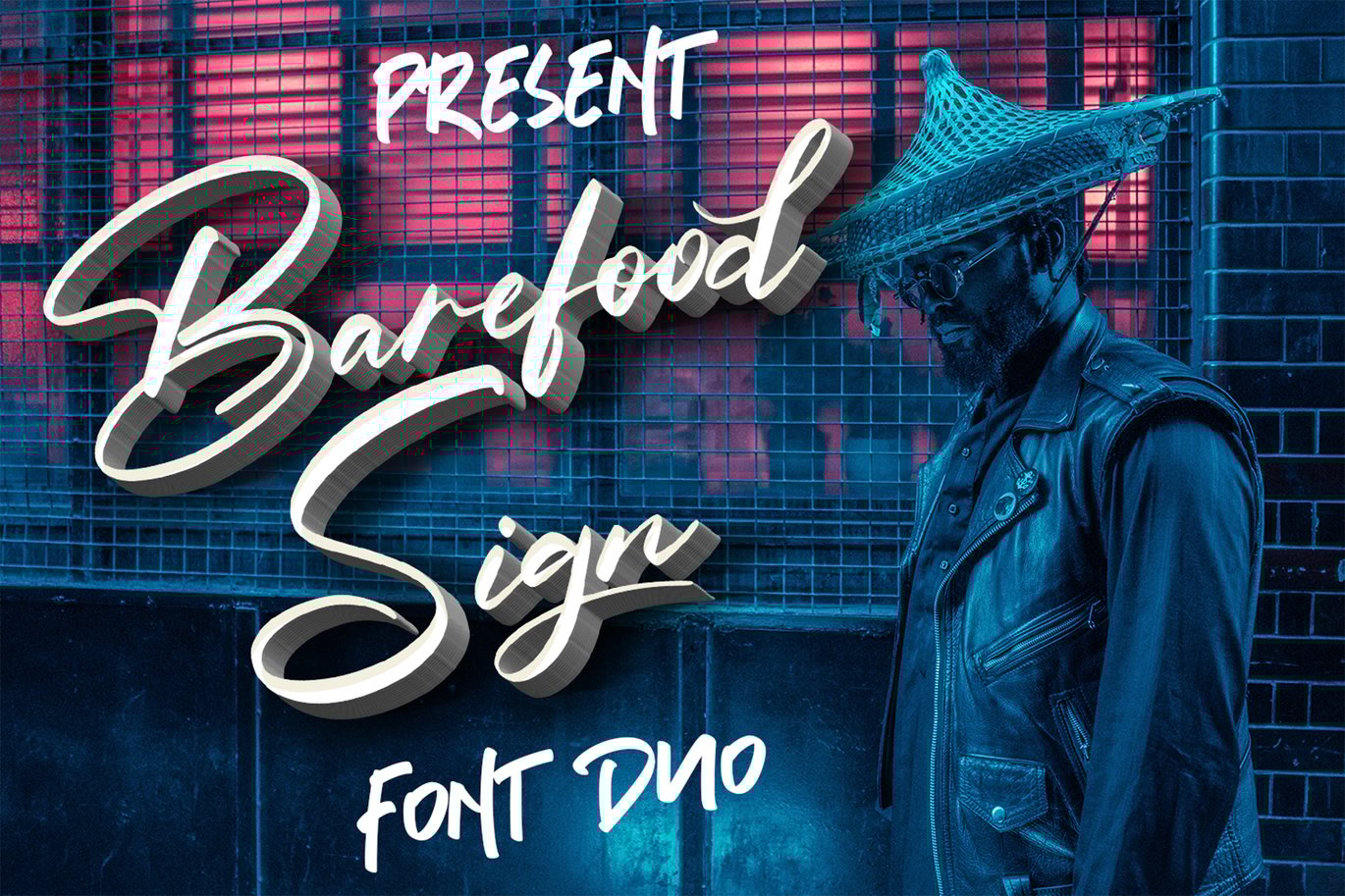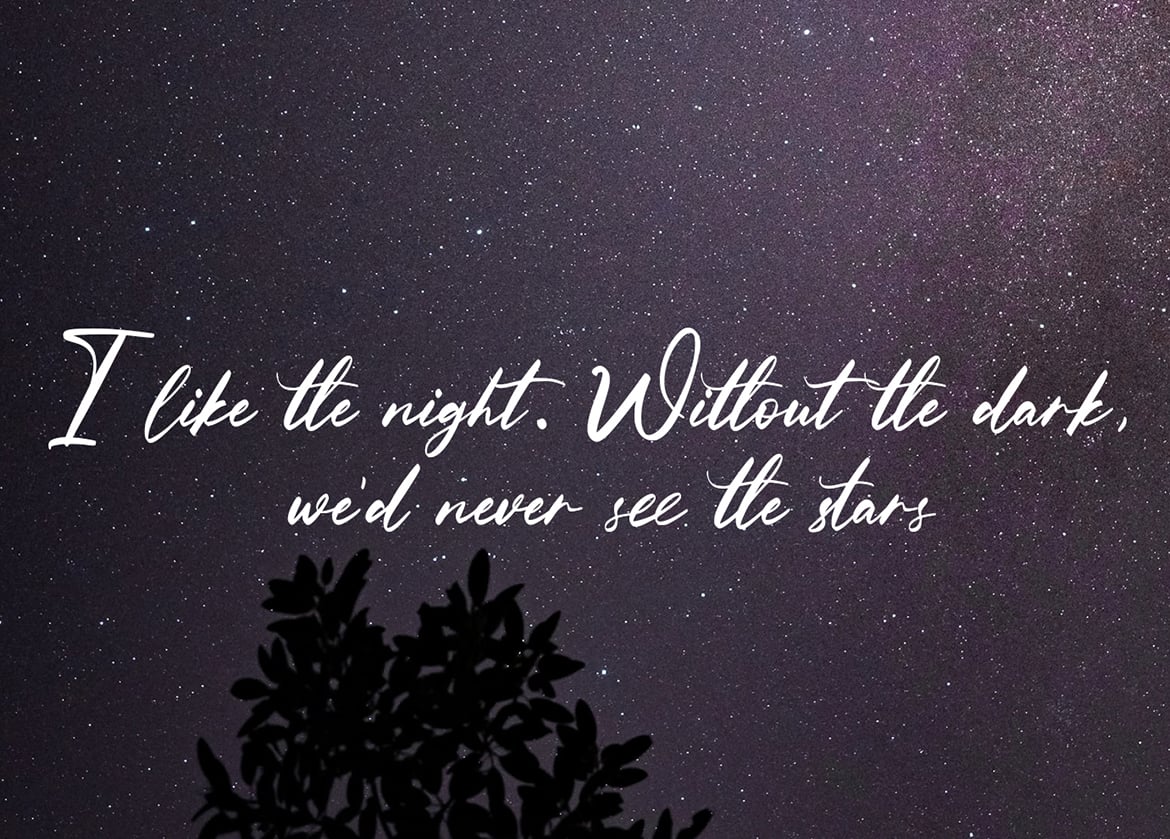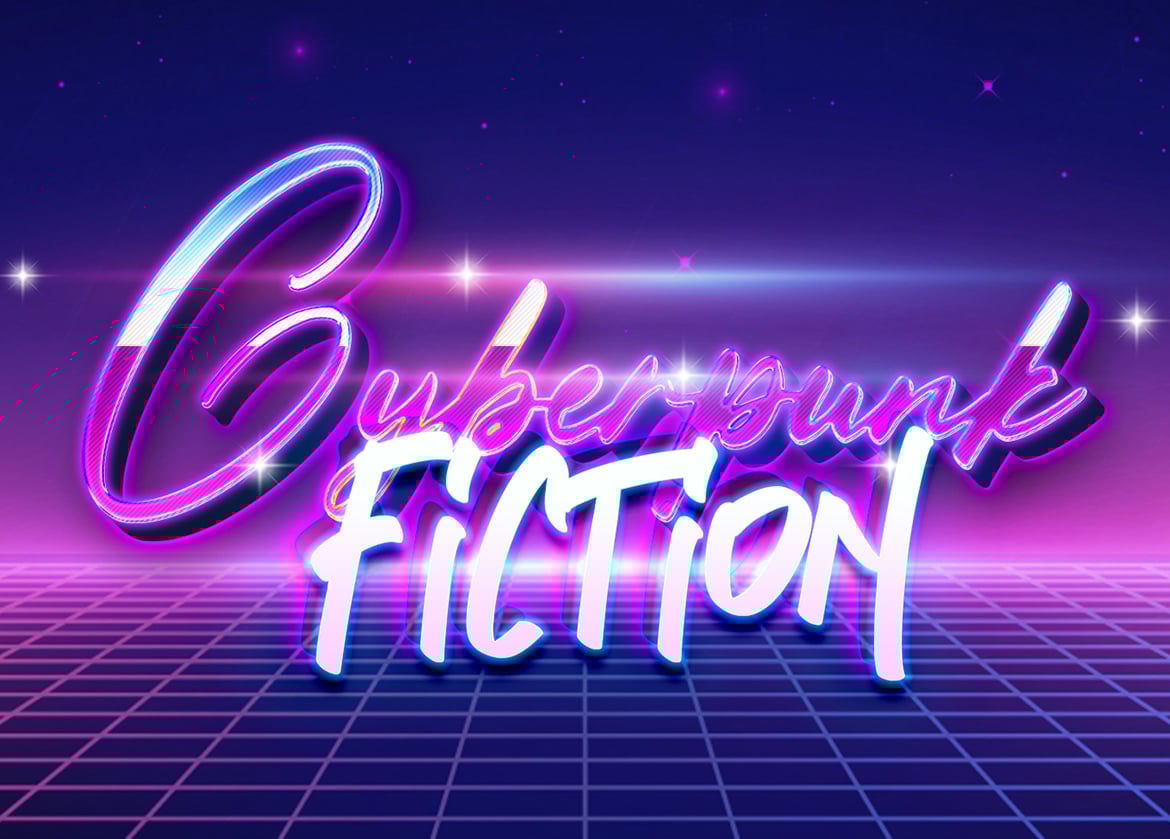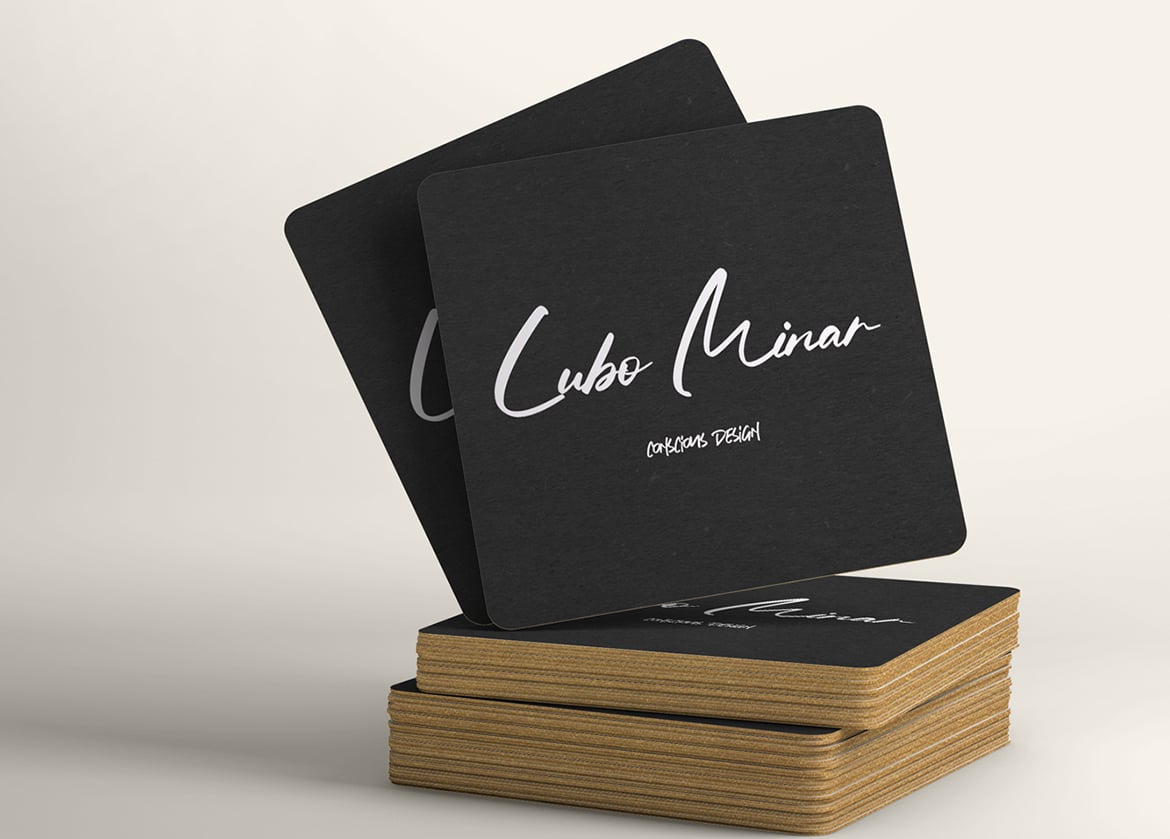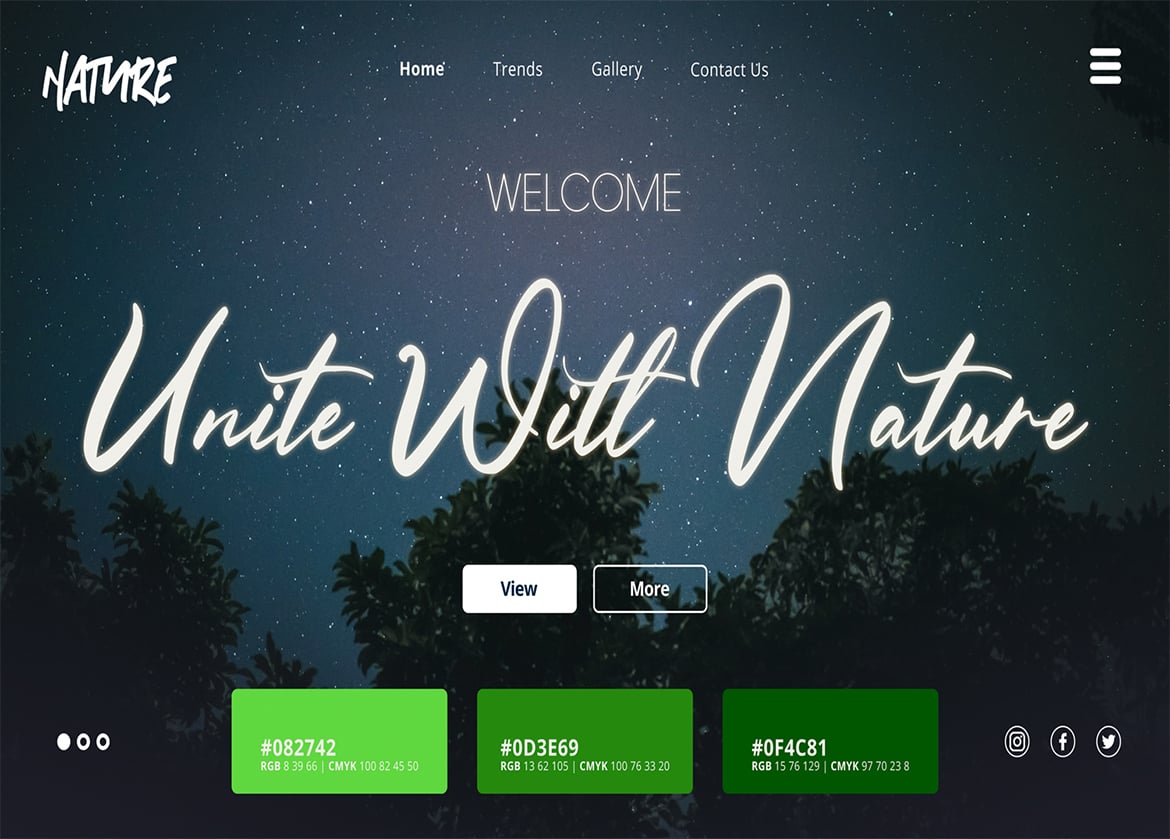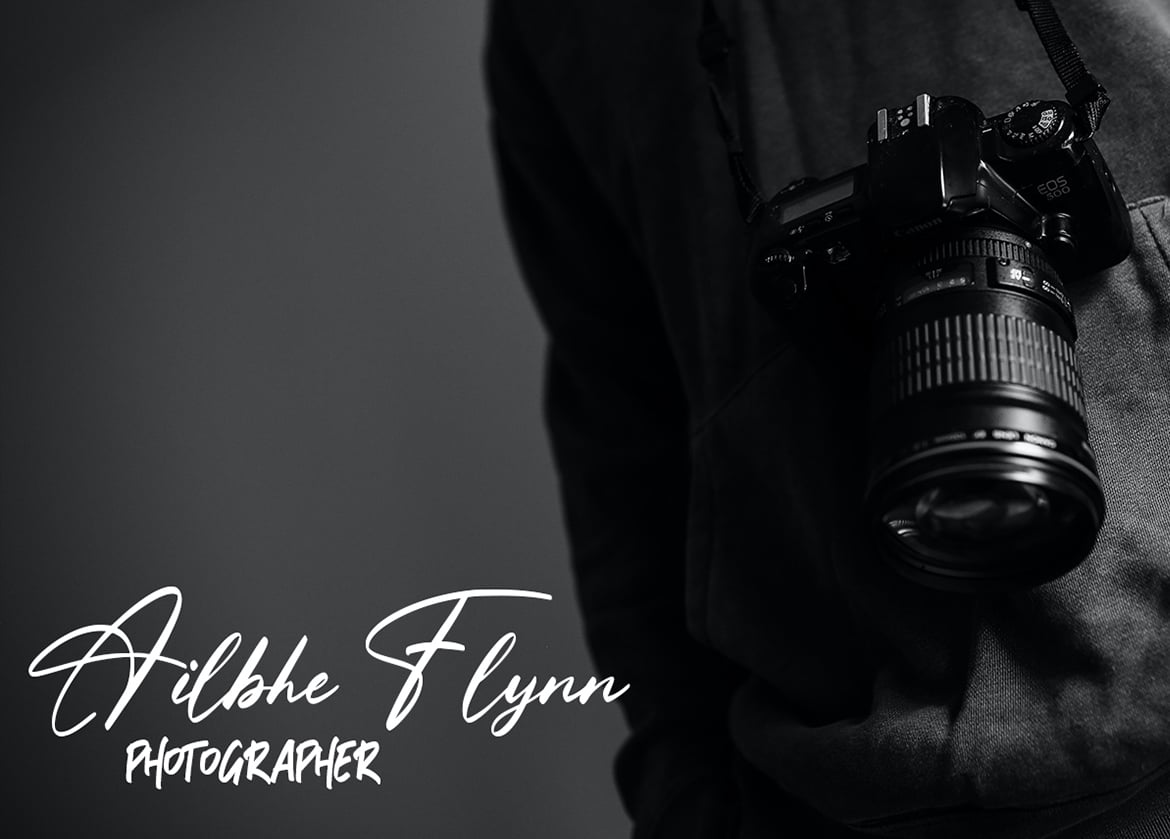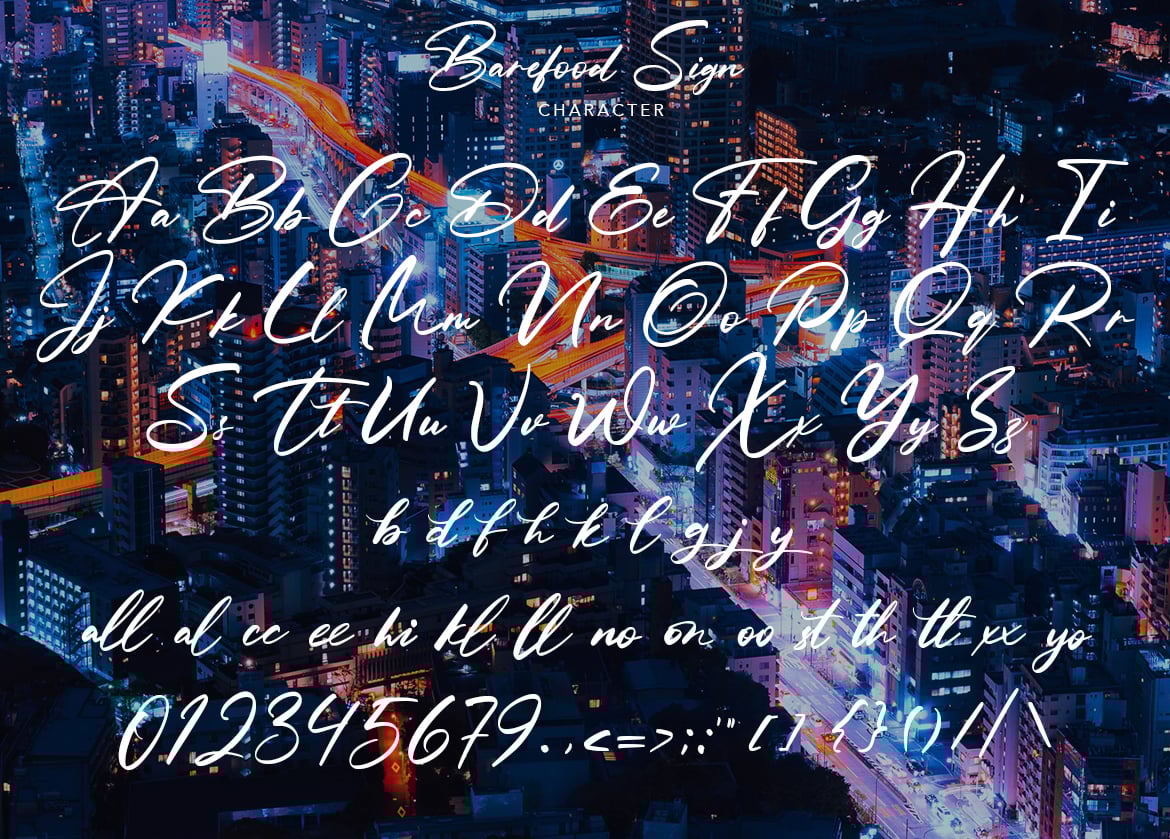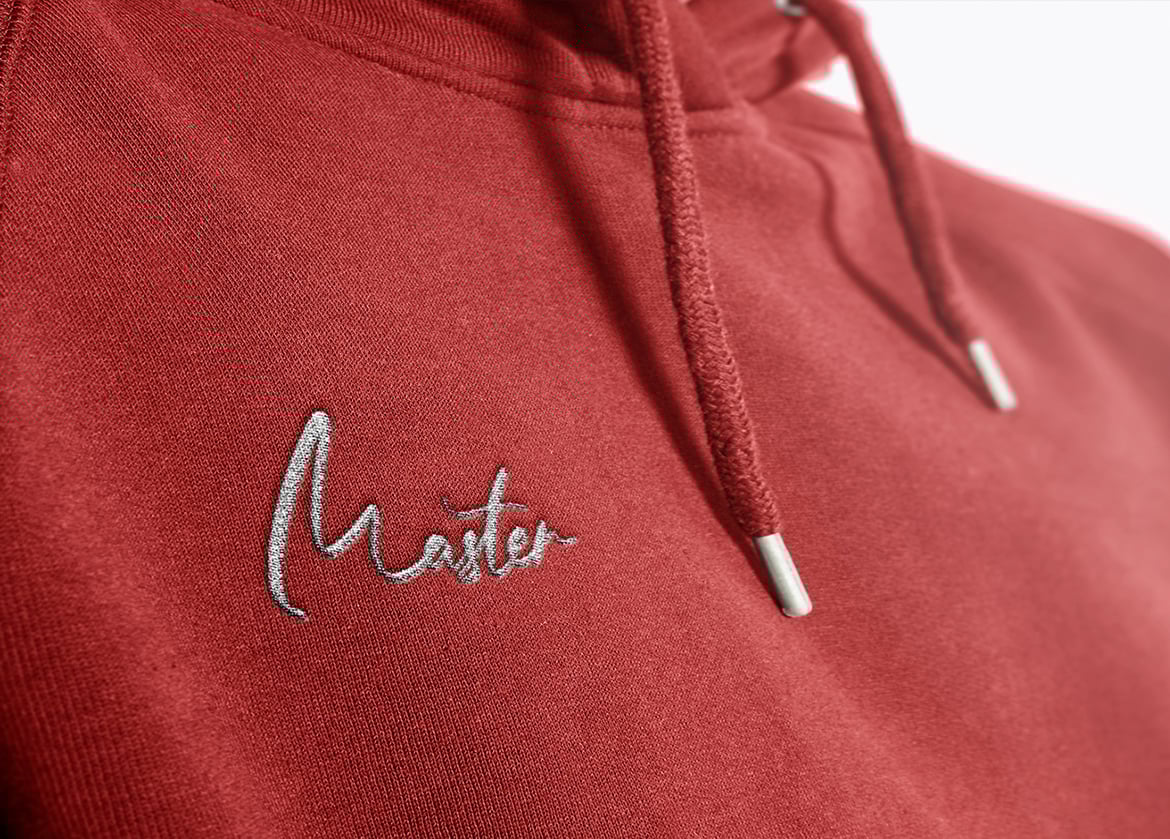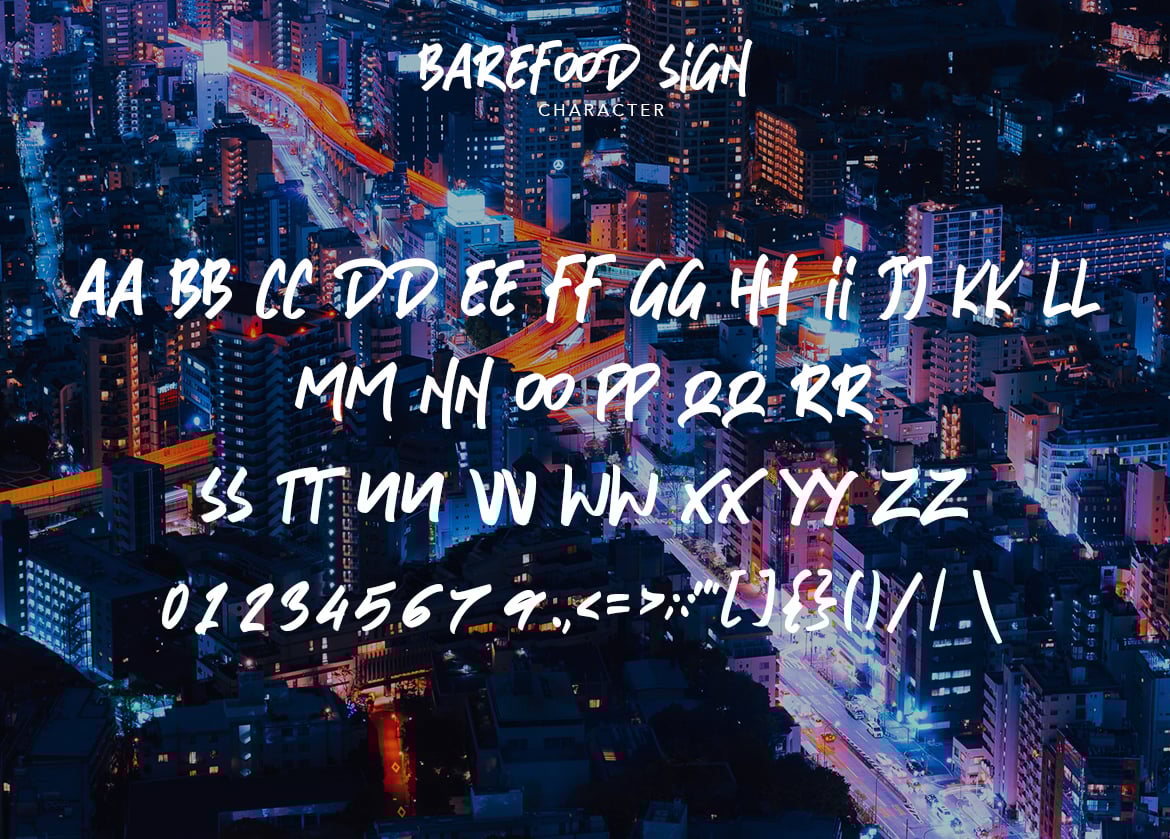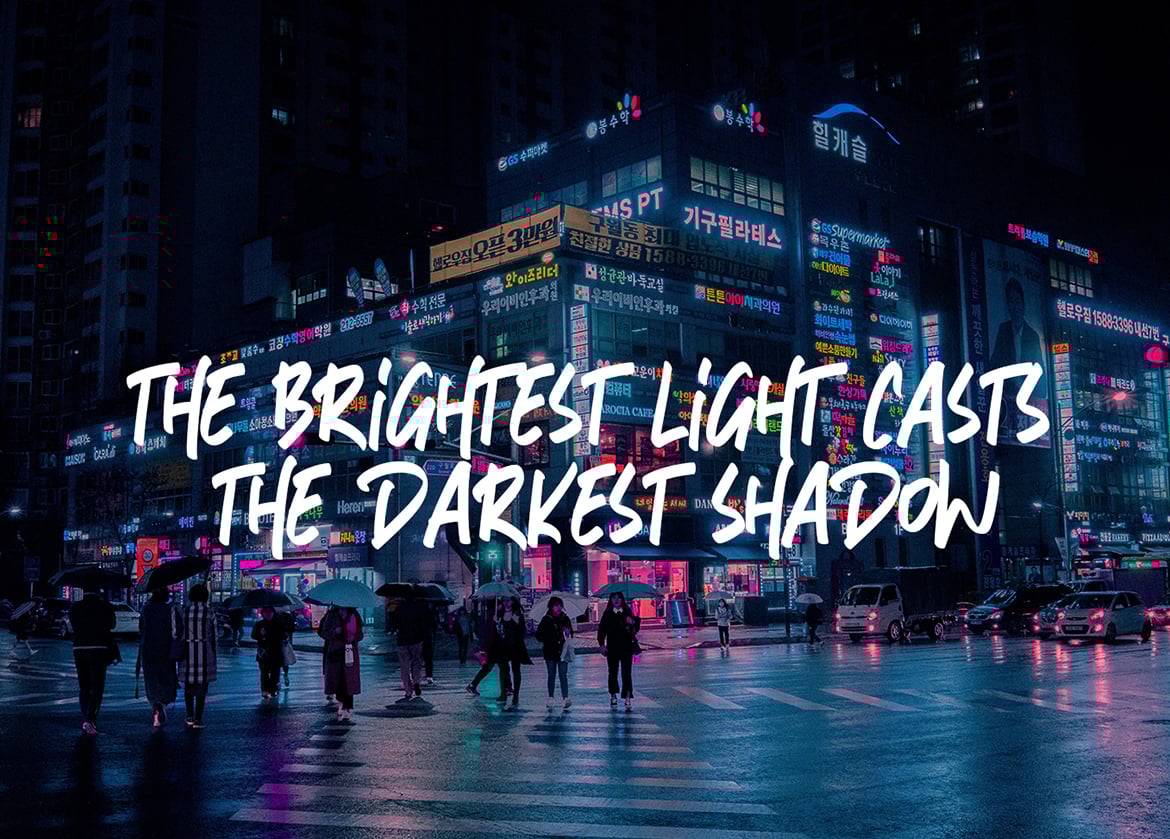
Barefood Sign | Font Combination
Barefood Sign This font carries a modern font style and classy future and the font combination is very suitable Barefood Sign font which is very elegant and modern for you to use and your design interests be it for logos, branding names, posters, podcasts and so on. This is perfect for you all.
Feature 1.Uppercase & Lowercase 2.Numer & Punctuation 3.Multilingual 4.Ligatures 5.Alternate